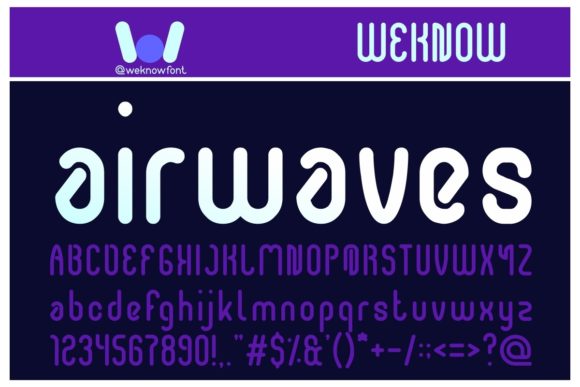
Introducing Airwaves Font: Elevate Your Designs with a Techno Twist
Are you on the hunt for a font that can instantly give your designs a techno edge? Look no further than Airwaves Font. This simple yet striking display font is perfect for designers and crafters looking to add a modern touch to their work. In this article, we’ll dive into the world of Airwaves Font, exploring its features, uses, and endless possibilities.
What is Airwaves Font?
Airwaves Font is a sleek and contemporary display font designed to make a statement. Its clean lines, minimalist aesthetic, and techno-inspired style make it an ideal choice for a wide range of design projects. Whether you’re working on a poster, flyer, or print material, Airwaves Font is sure to turn heads.
Key Features of Airwaves Font
- Simple yet striking: Airwaves Font boasts a simple, uncluttered design that exudes a sense of modernity and sophistication.
- Techno-inspired: With its clean lines and geometric shapes, Airwaves Font has a distinctly techno feel that’s perfect for designs that require a cutting-edge look.
- Display font: Airwaves Font is designed specifically for display purposes, making it ideal for headlines, titles, and other prominent text elements.
- Highly versatile: Whether you’re working on a poster, flyer, or print material, Airwaves Font can be used in a variety of design contexts.
Uses for Airwaves Font
Airwaves Font is a highly versatile font that can be used in a wide range of design projects. Here are just a few ideas to get you started:
- Posters: Use Airwaves Font to create eye-catching posters for concerts, events, or product launches.
- Flyers: Add a techno twist to your flyers with Airwaves Font, perfect for promoting services, products, or workshops.
- Prints: Incorporate Airwaves Font into your print materials, such as brochures, business cards, or letterheads, to give them a modern edge.
- Digital designs: Airwaves Font can also be used in digital designs, such as social media graphics, email headers, or website titles.
Endless Possibilities with Airwaves Font
One of the best things about Airwaves Font is its endless possibilities. With its highly versatile design, you can use it in a wide range of contexts and applications. Here are just a few ideas to inspire you:
- Experiment with colors: Try pairing Airwaves Font with bold, bright colors to create a striking visual effect.
- Play with textures: Add texture to your designs by combining Airwaves Font with different textures, such as gradients, patterns, or images.
- Mix and match: Combine Airwaves Font with other fonts to create a unique and visually appealing typography.
In conclusion, Airwaves Font is a simple yet striking display font that’s perfect for designers and crafters looking to add a techno twist to their work. With its clean lines, minimalist aesthetic, and highly versatile design, Airwaves Font is sure to elevate your designs and open up endless possibilities. So why wait? Download Airwaves Font today and start exploring its limitless potential!